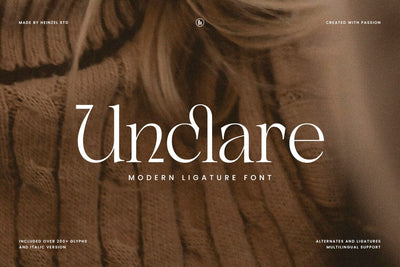
Unclare Modern Ligature Font
Unclare is an elegant and modern ligature serif font. Fall for its captivating style and use it to create gorgeous logos, headlines, branding, wedding invitations, beautiful stationary art, eye-catching social media posts, and much more!
Unclare Features:
- Unclare Regular and Italic Version
- Uppercase, Lowercase, Numerals, and more punctuations.
- Ligatures and Alternates
- Multilingual support for various languages